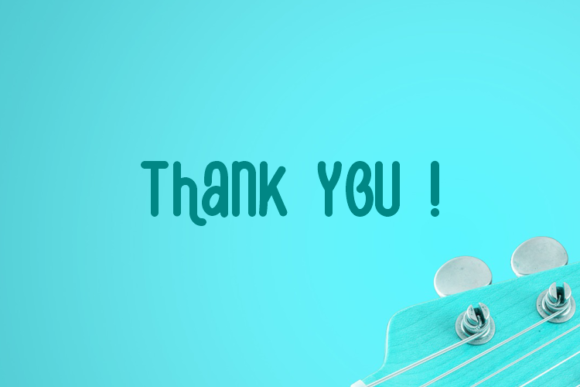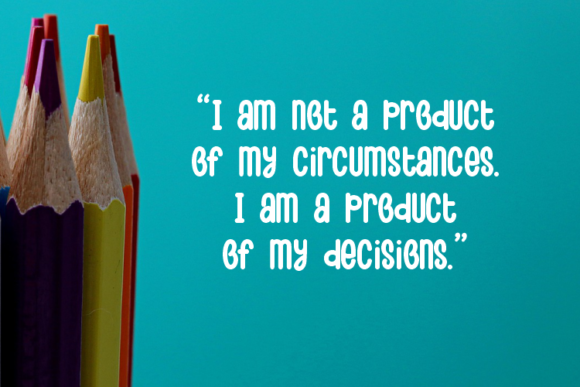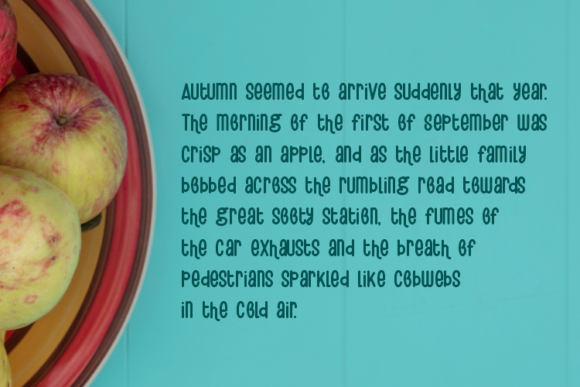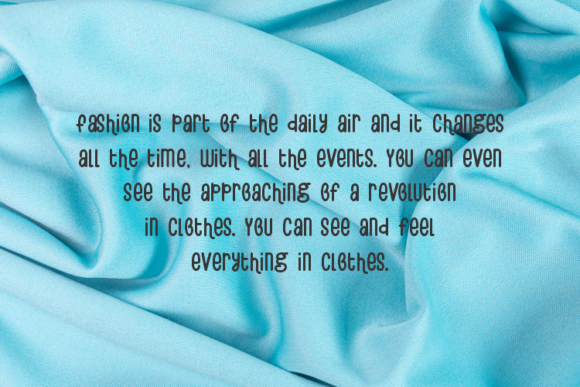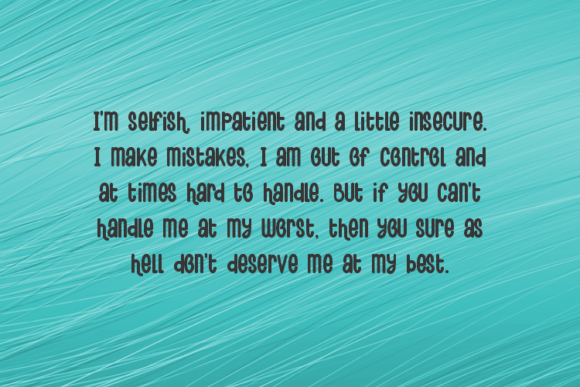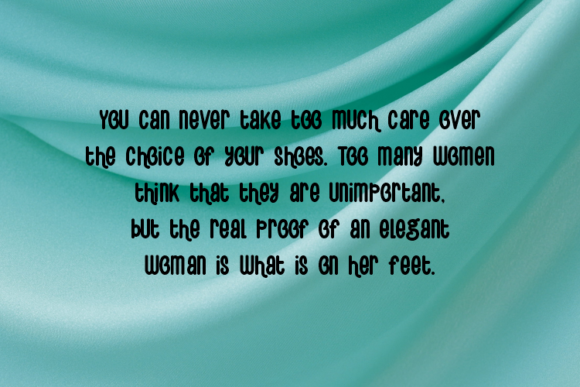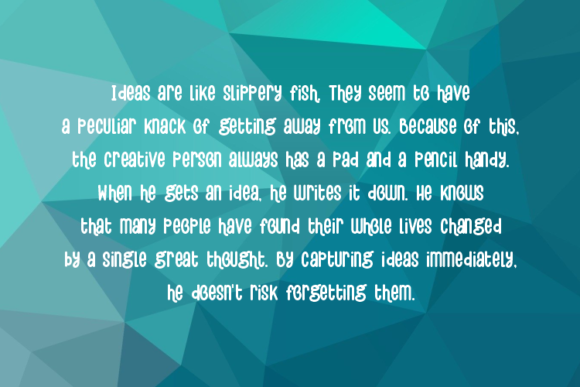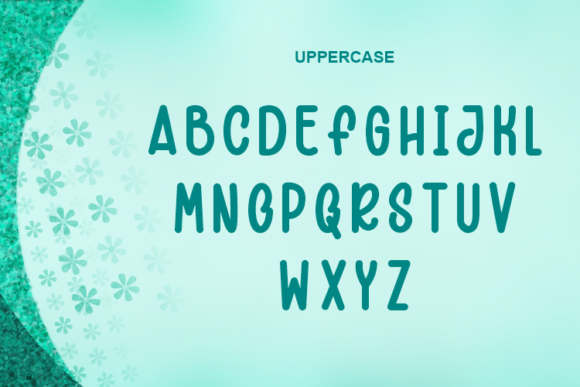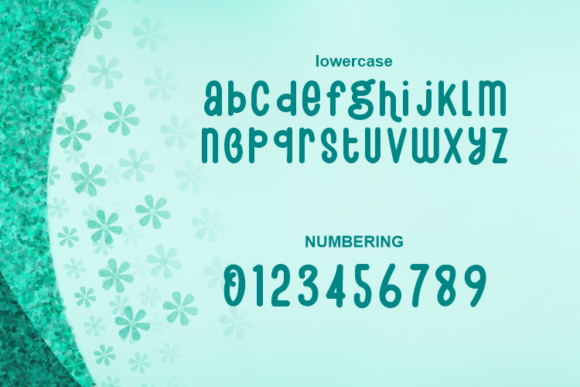
Diandra Font
About Diandra Font
Diandra is a simple handwritten font crafted especially for your design project. You can easily create a cool logo, branding, and promotion with this font. Diandra brings a modern and strong impression to your design, making this font suitable as the main text/header on a website or layout design.